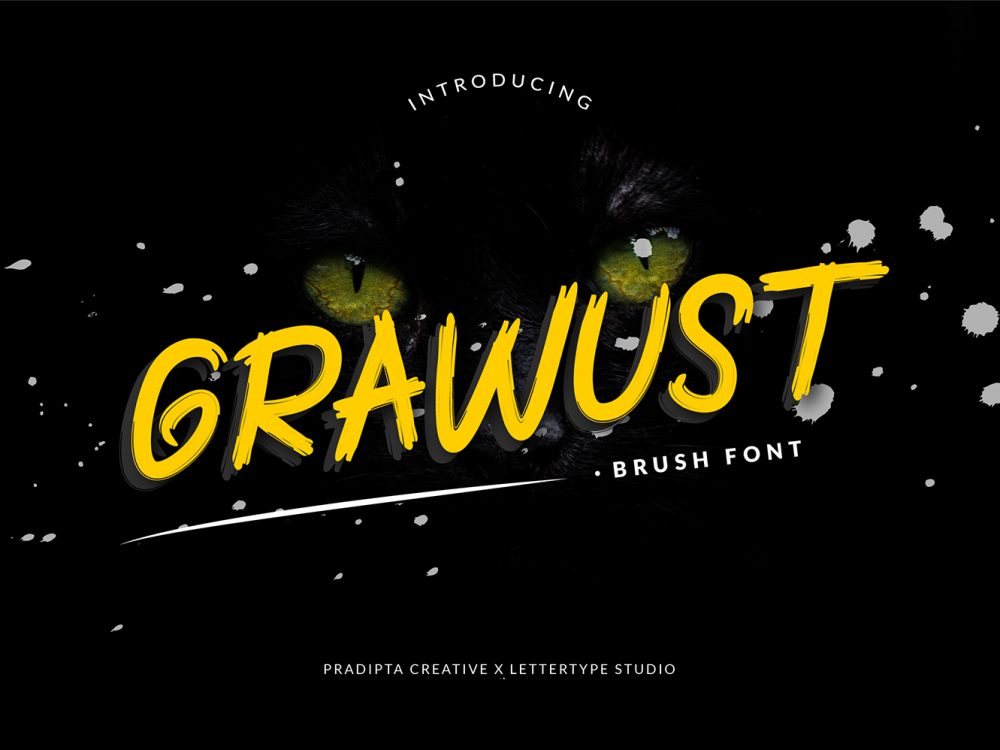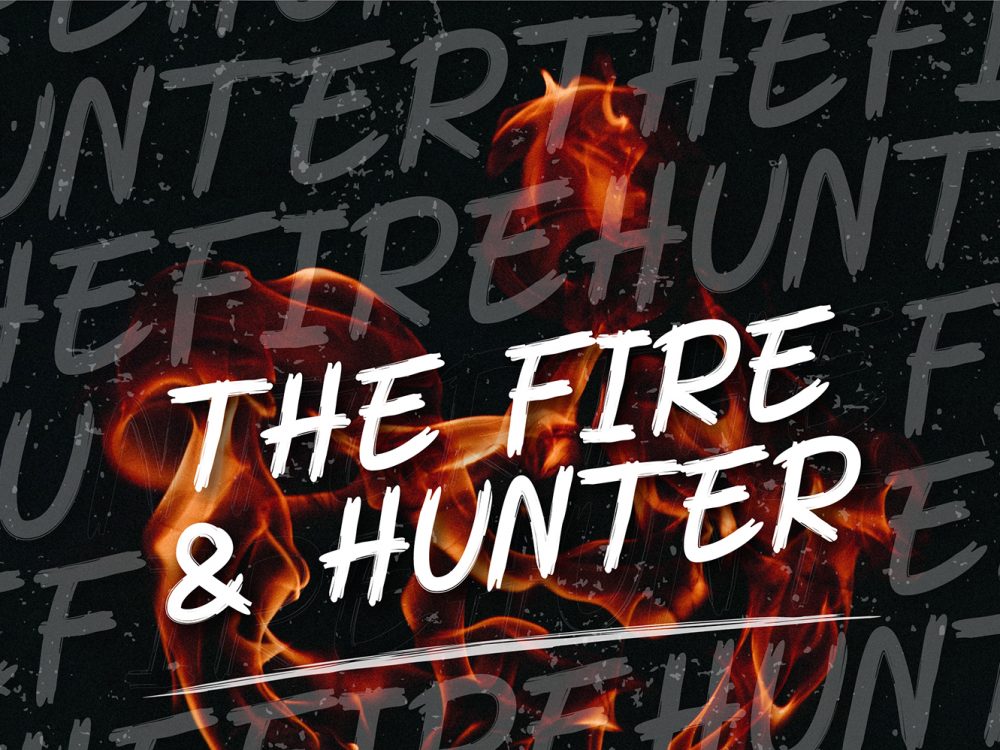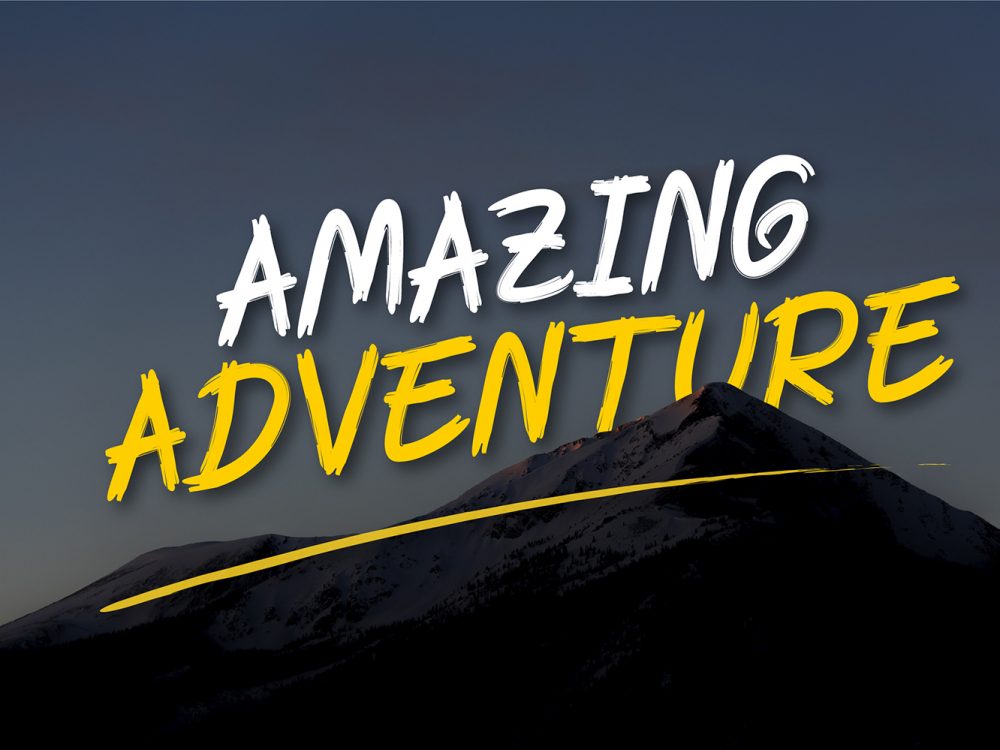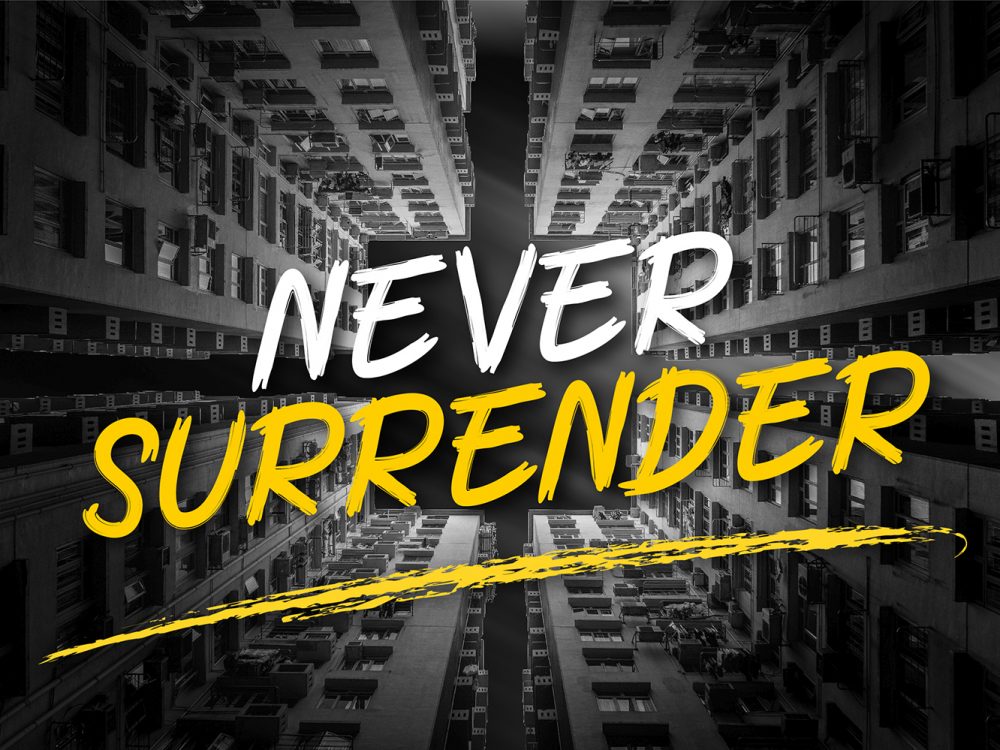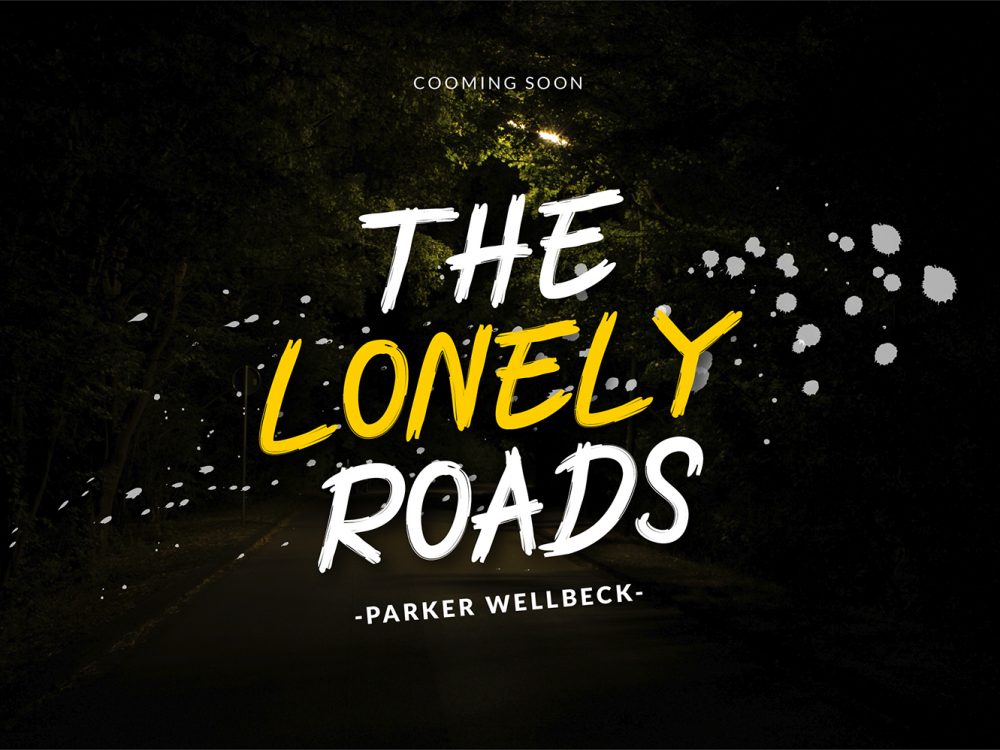
Grawust Free Font
Grawust Free Font is an interesting typeface that mimics writing with a brush and has an elegant style. This font is very suitable for creating various design projects that require a handwritten font. These can be posters, cards, invitations, flyers, prints, and much more. If you wish to access more features and use it for commercial work please buy the full version.